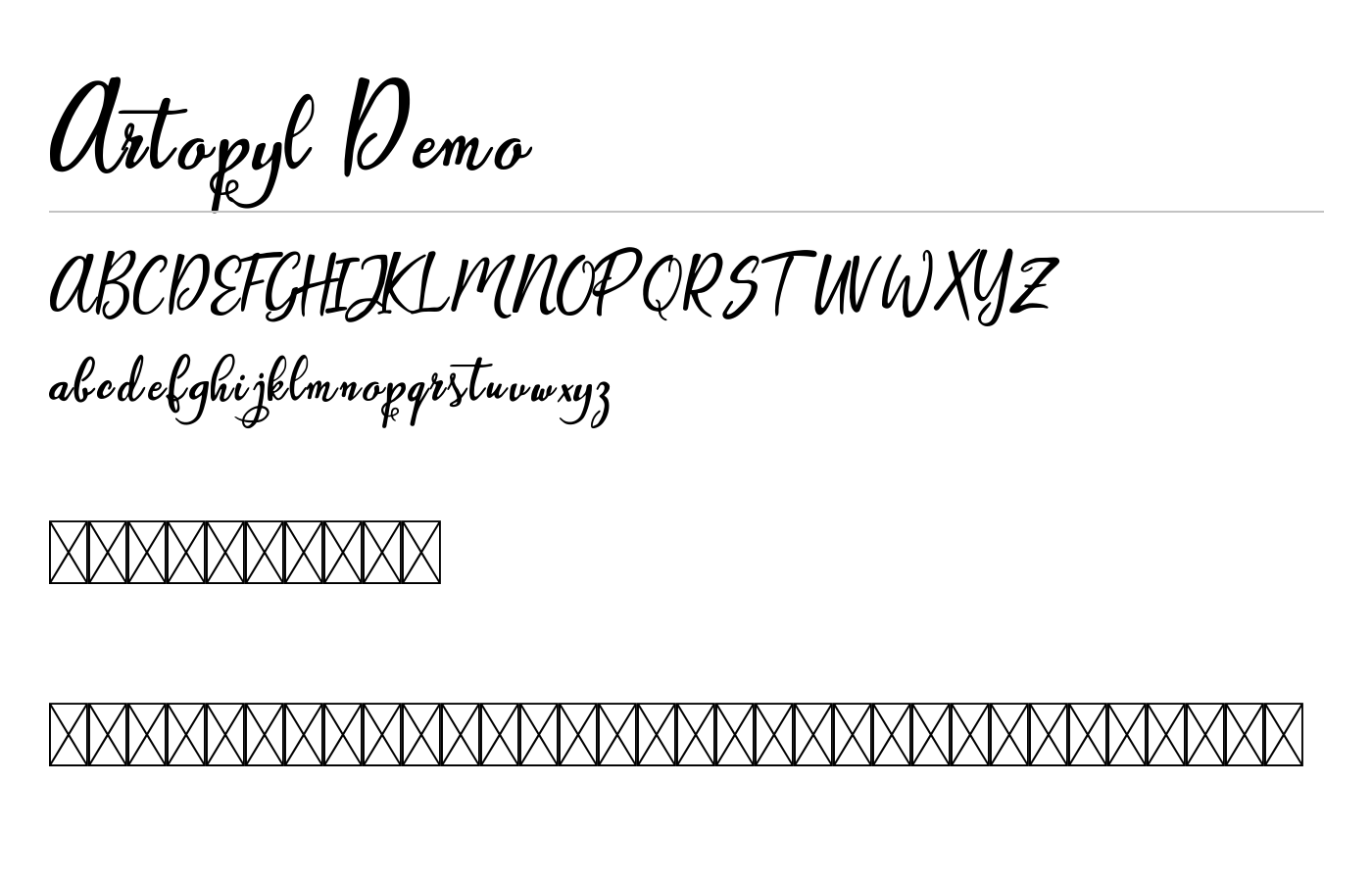
Artopyl Demo is an elegant script font with fluid, brush-like strokes that create a natural, handwritten feel. Its smooth curves and varied stroke widths lend it a warm, personal touch, making it ideal for invitations, branding, and creative projects that seek a stylish yet approachable look. This font works best in display settings like logos and headlines where its unique charm can truly shine.
Artopyl Demo Font
About Artopyl Demo Font